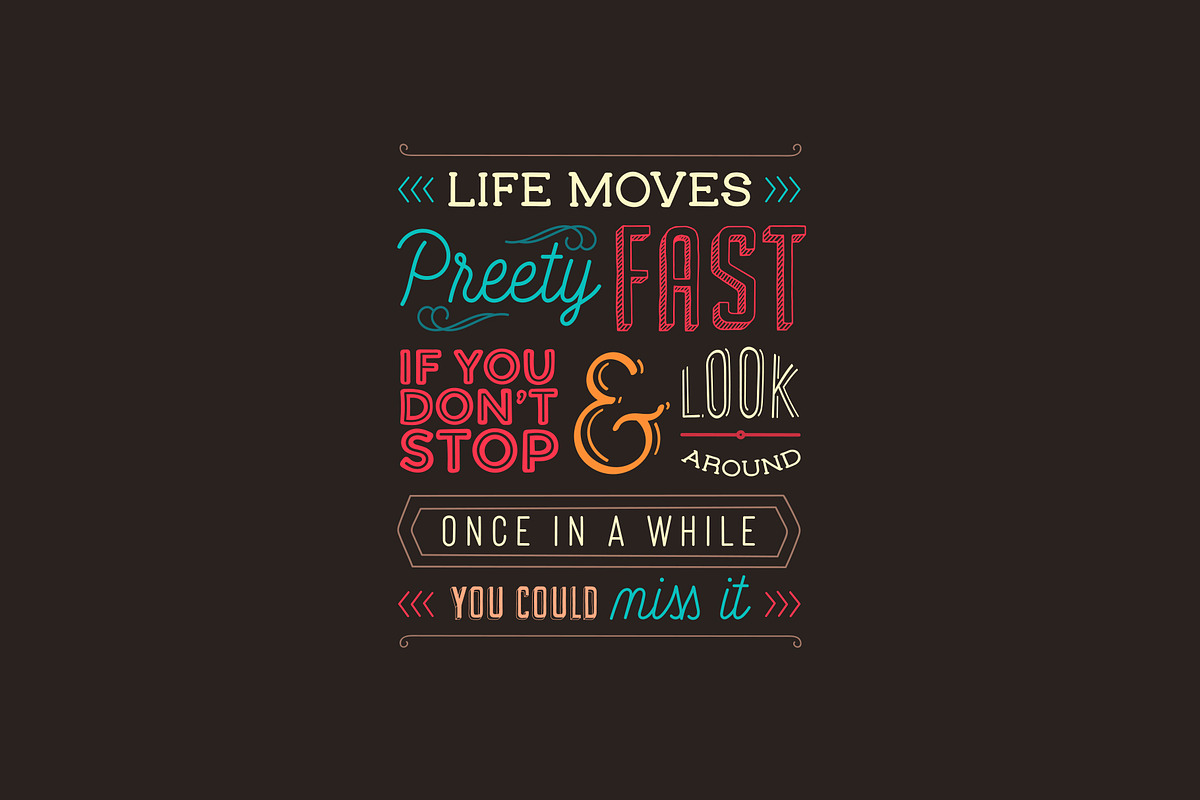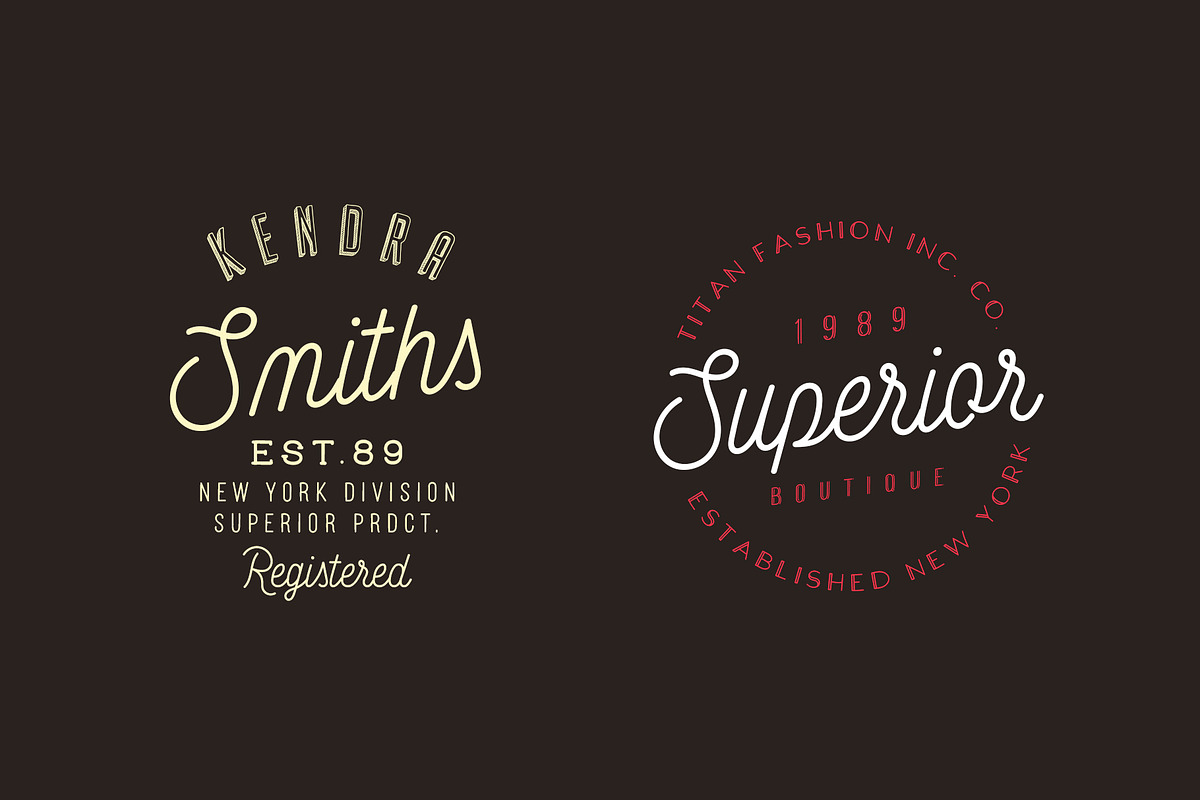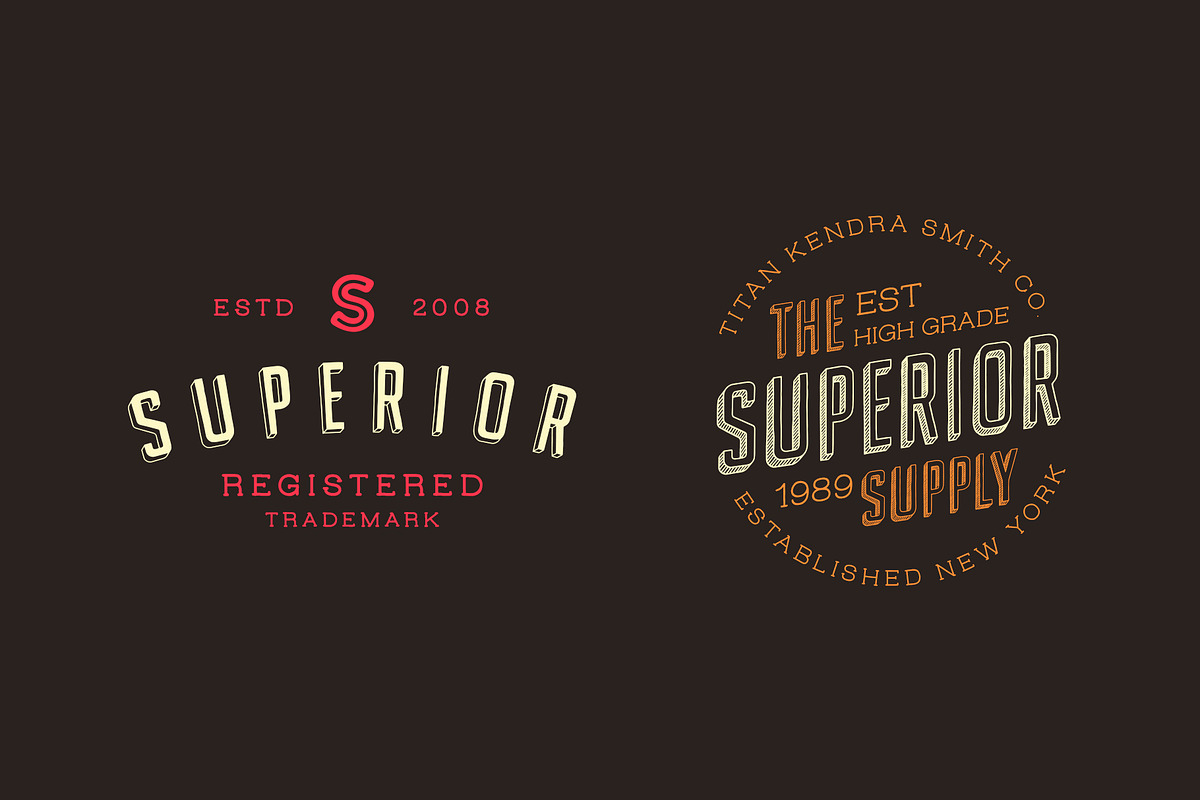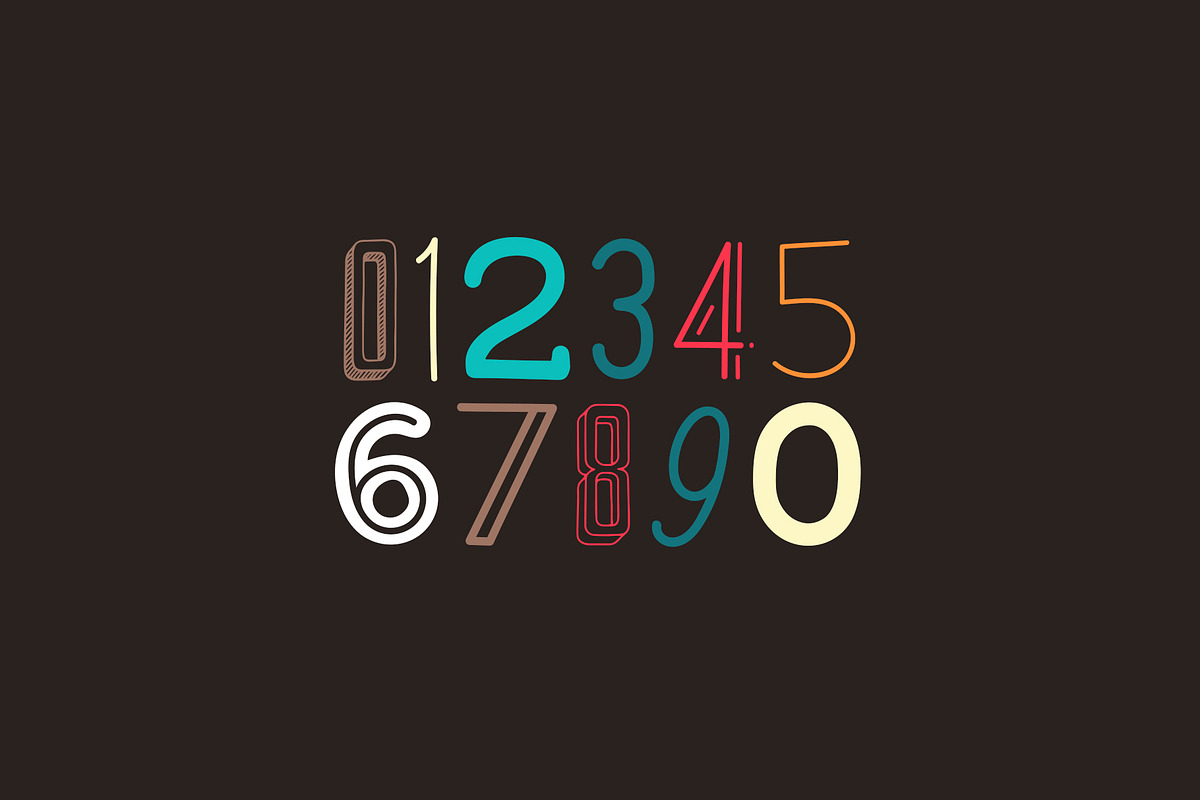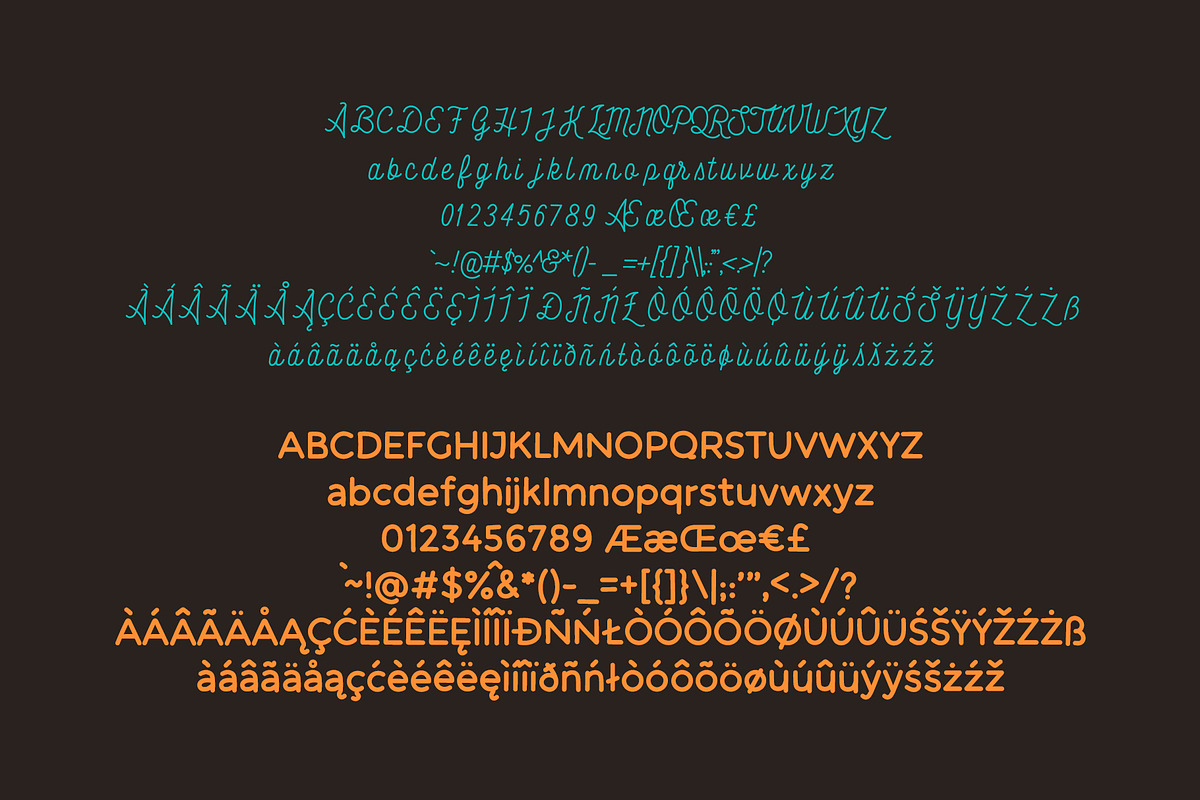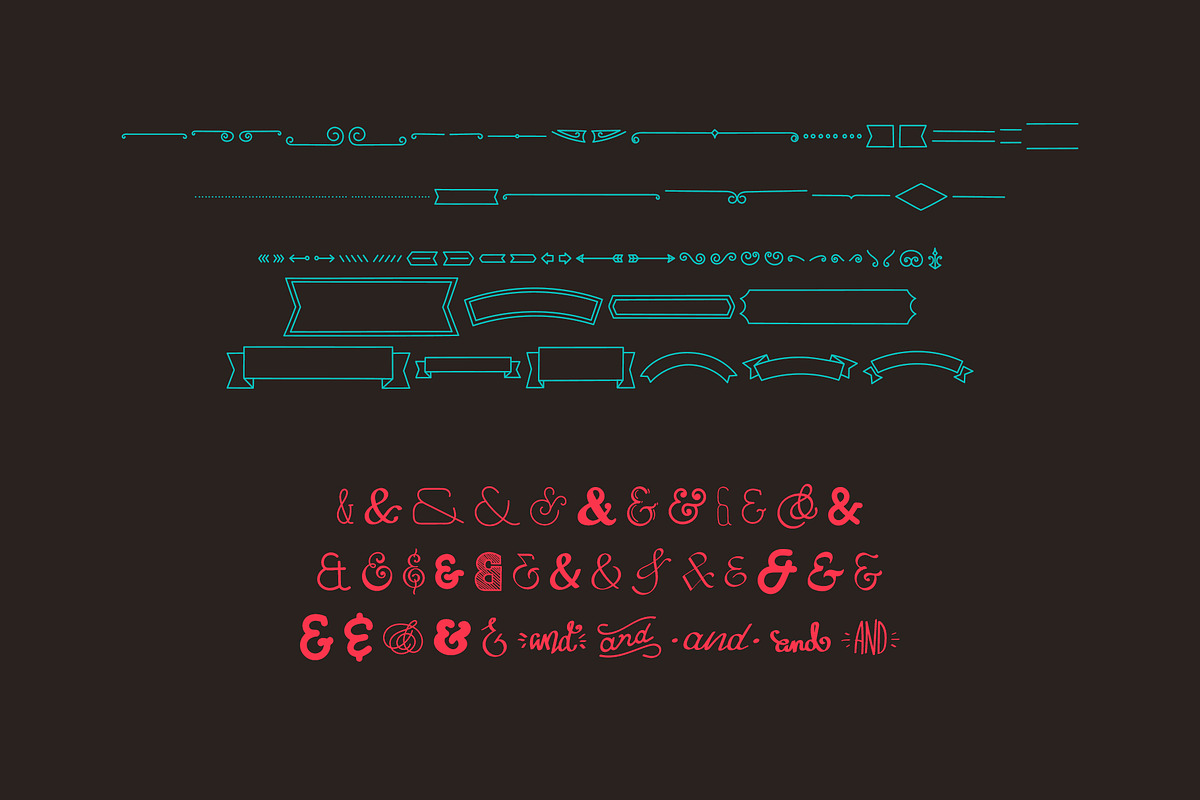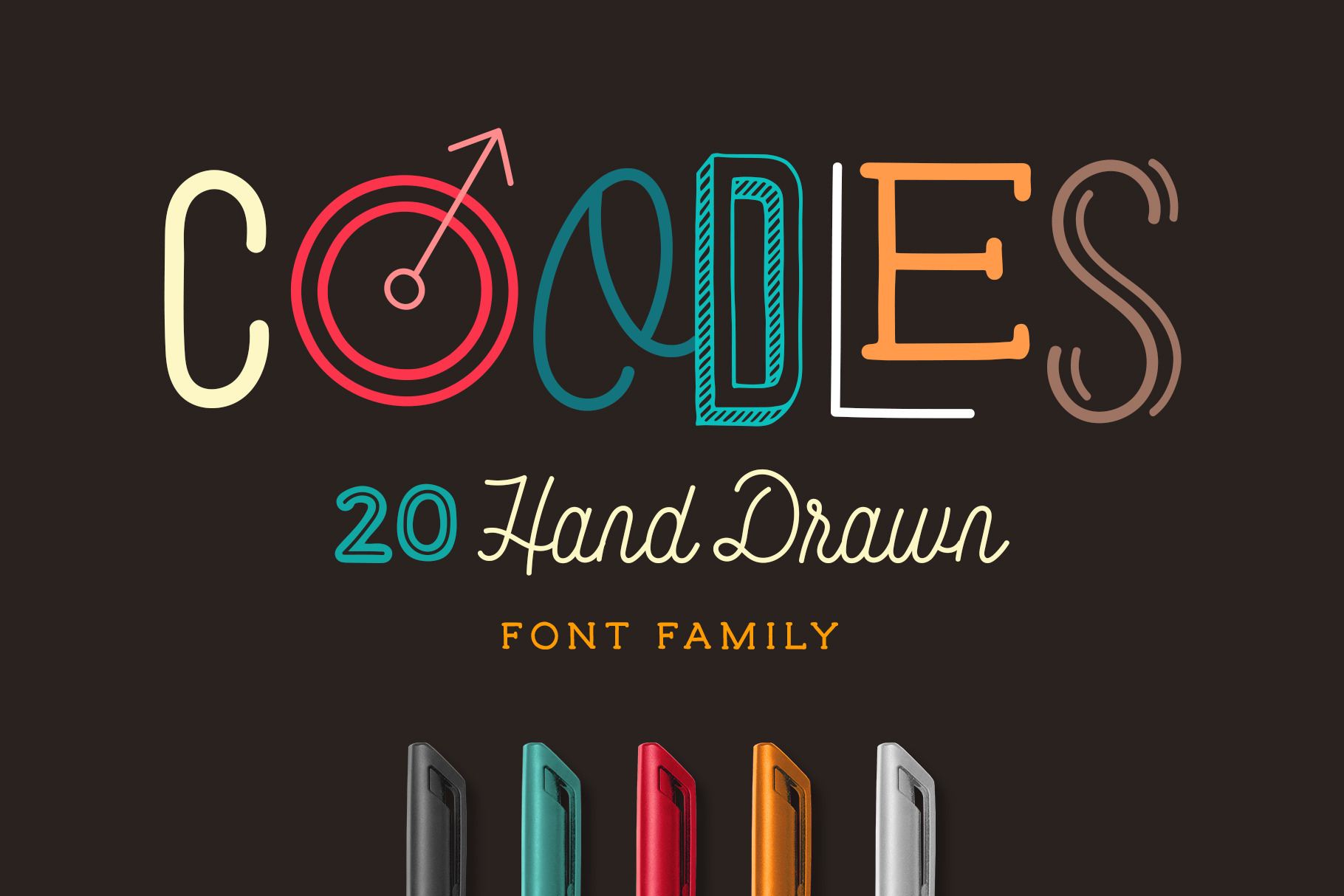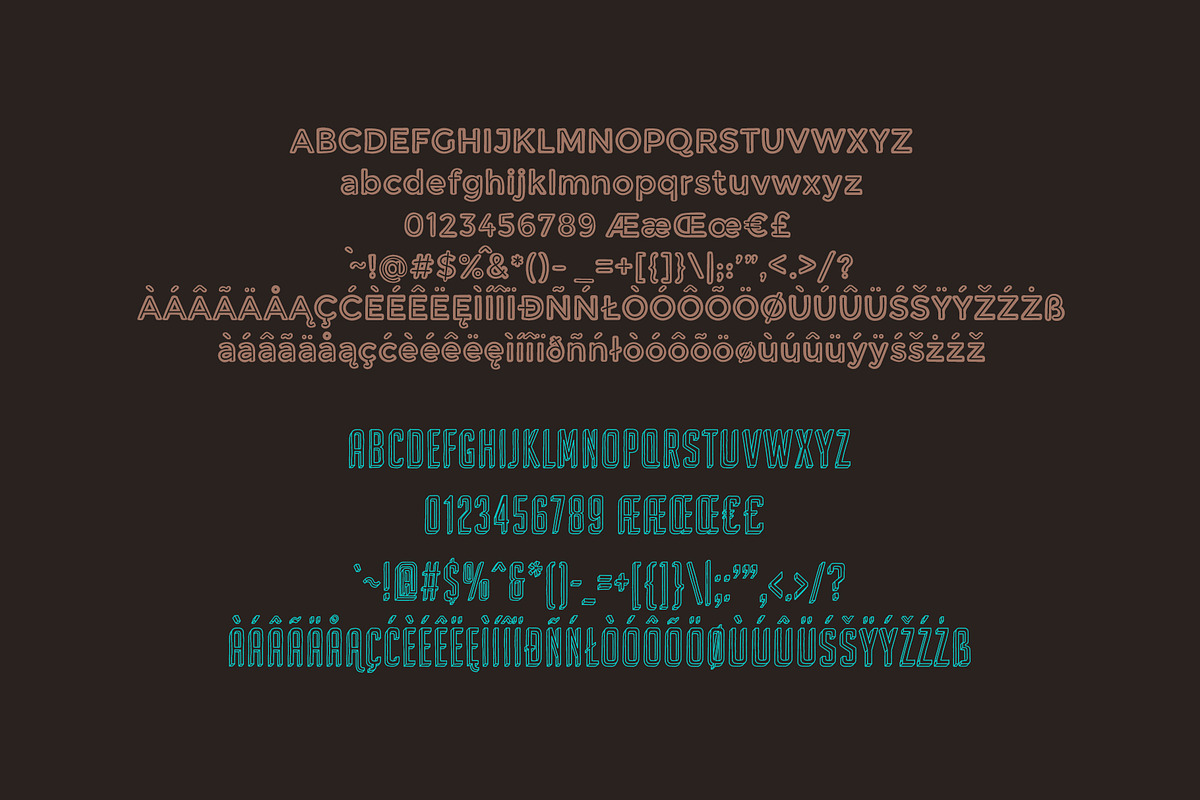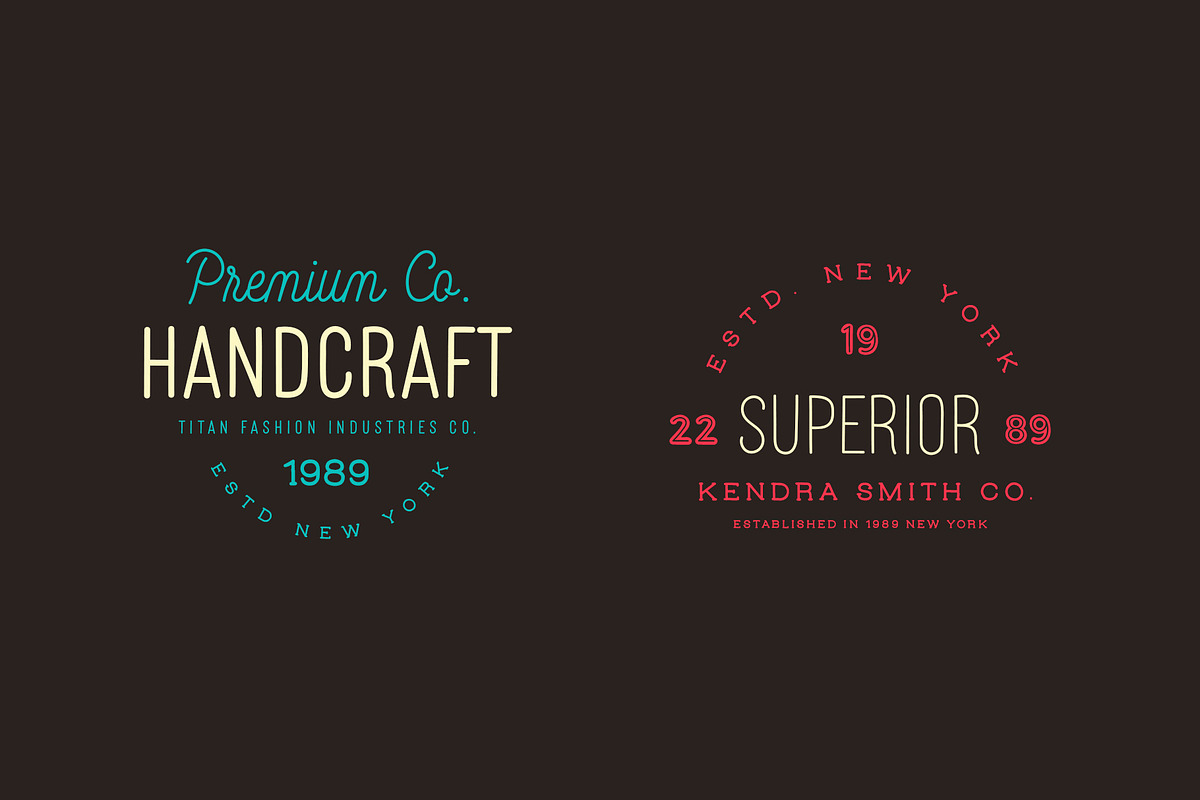
Coodles Hand Drawn Font Family
Coodles is a large family of fonts featuring all you need to create playful and awesome logos and typography! All of the fonts, including the illustrations are hand drawn and go great with each other!
- 20 fonts
- 16 regular fonts
- 3 fonts in the form of illustrations
- 1 font featuring ampersands
- Uppercase and lowercase (lowercase for only half - see presentation)
- Numerals and punctuation
- Alternates and ligatures